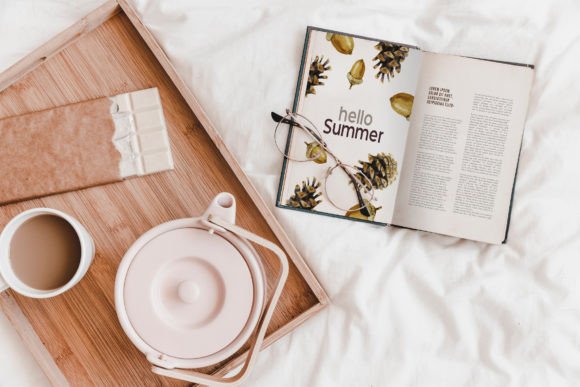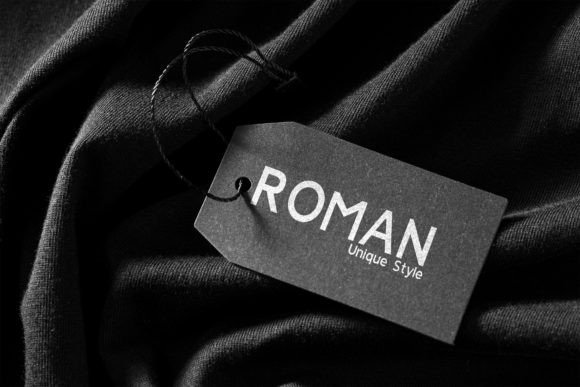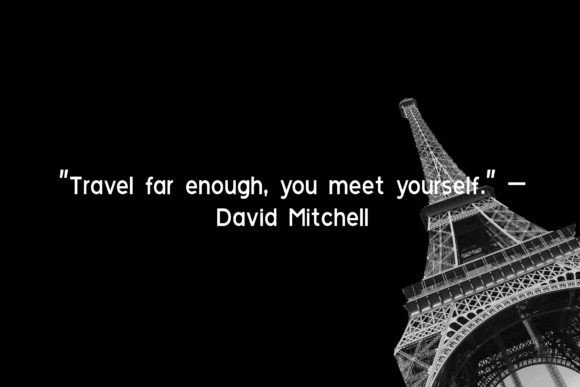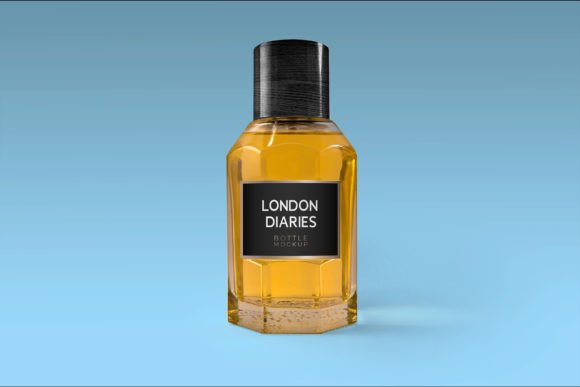
The Art of Elegant Typography: Discovering the Alexander Font
As a designer, there’s nothing quite like the thrill of creating something beautiful and meaningful. It’s that moment when you see your vision come to life, and everything clicks into place. For many of us, that moment is often sparked by the perfect font – the one that elevates our design from ordinary to extraordinary. And for those seeking a touch of sophistication and refinement, the Alexander Font is sure to be a game-changer.
With its clean lines, elegant curves, and meticulous attention to detail, the Alexander Font is the perfect choice for designers looking to add a classic charm to their creations. Whether it’s a logo, heading, or invitation, this versatile font is sure to make a lasting impression. Its timeless aesthetic and balanced form make it a valuable asset for designers who want to bring a sense of elegance to their work.
Alexander Font Key Features
- Unique Characteristics: The font features a distinctive blend of classic and modern elements, making it suitable for a wide range of design applications, from formal to informal.
- Font Styles: Alexander Font includes a variety of font styles, including regular, italic, bold, and bold italic, providing users with flexibility and creative freedom.
Designer Review: Alexander Font
Overall, I think Alexander Font has some great qualities, but it also has some areas where it falls short. Let’s start with what works well:
- ✨ Unique character set: Alexander Font has a distinctive and elegant character set that can add a touch of sophistication to any design project.
- ✨ Good legibility: The font is highly legible, making it a great choice for body text or any situation where readability is crucial.
- ✨ Versatile: Alexander Font can be used in a variety of contexts, from formal to informal, and its style adapts well to different design schemes.
- ⚠️ Limited language support: Alexander Font may not support as many languages as some other fonts, which could be a problem for global design projects.
- ⚠️ Limited size range: The font may not be as effective at very large or very small sizes, which could be a concern for certain design applications.
Overall, I think Alexander Font is a solid choice for designers who want a unique and elegant font for their projects. While it may have some limitations, its strengths make it a great option for many design contexts.
The Alexander font is ideal for use in formal or elegant designs. It’s commonly used for wedding invitations, business cards, and other professional materials.
For the most out of Alexander Font, use it in combination with elegant colors and minimal design elements.